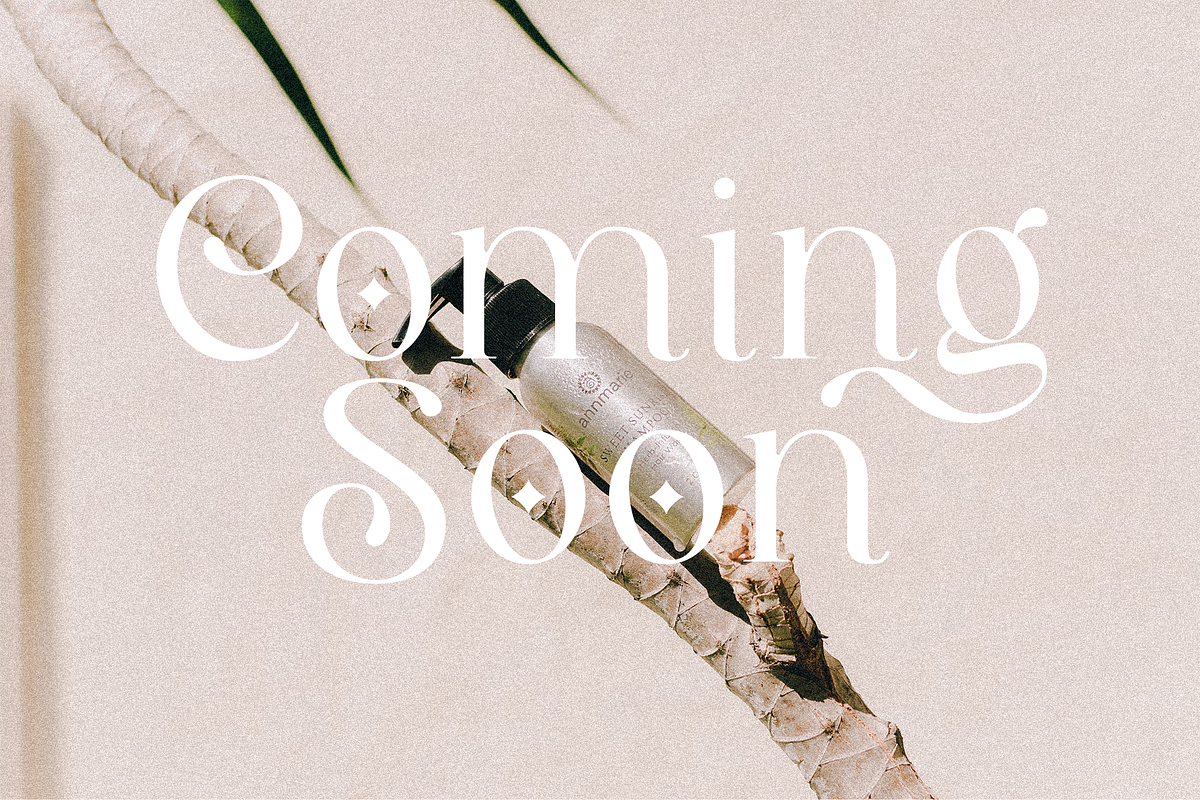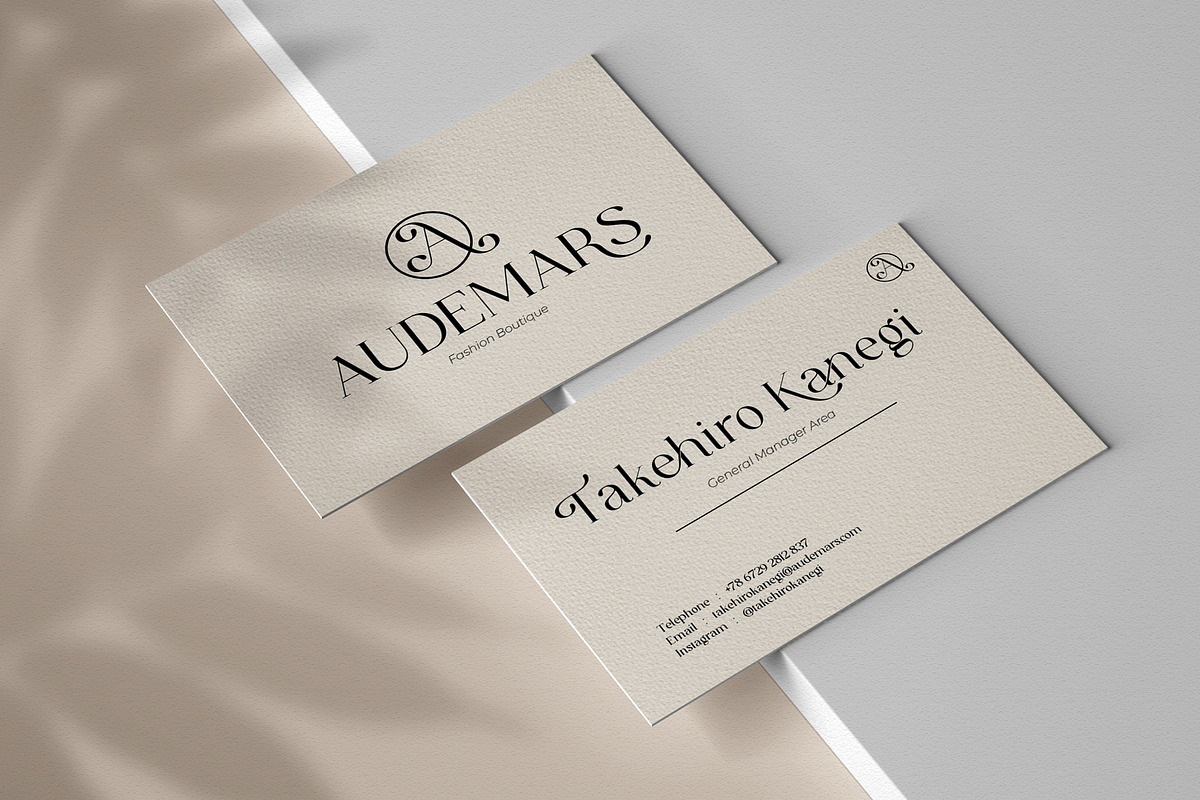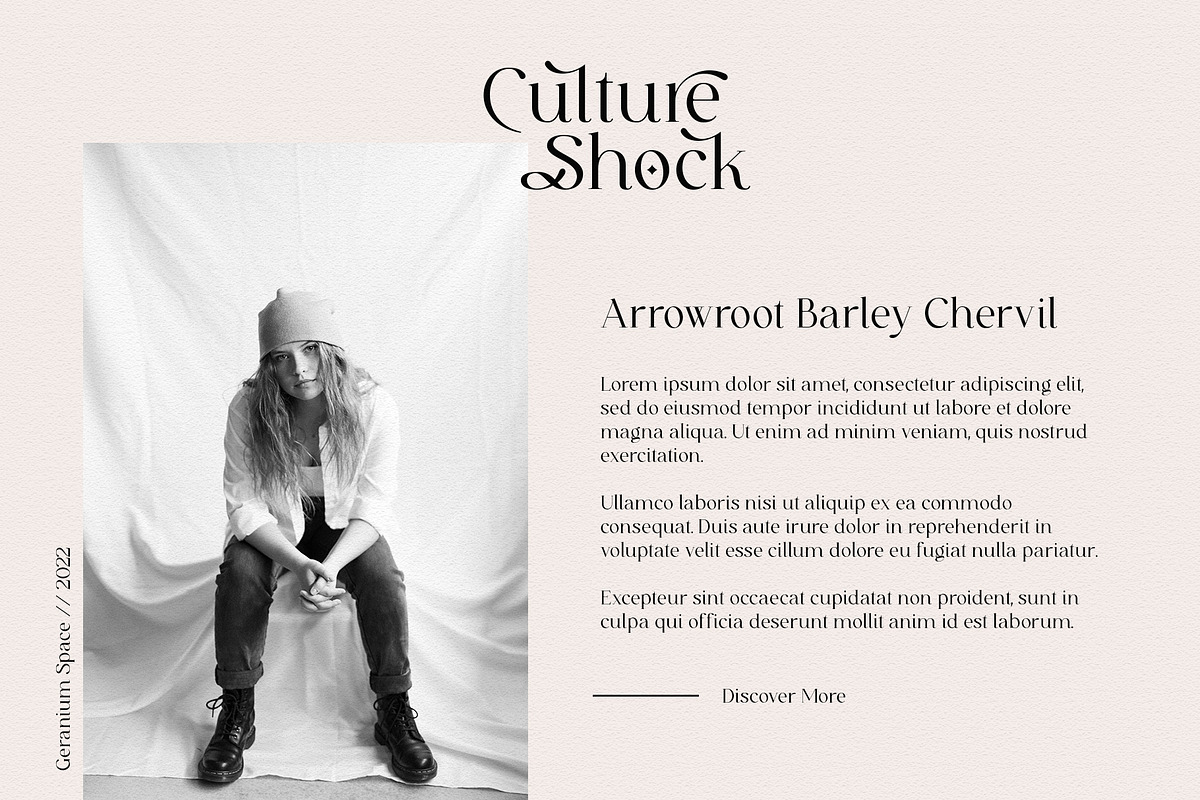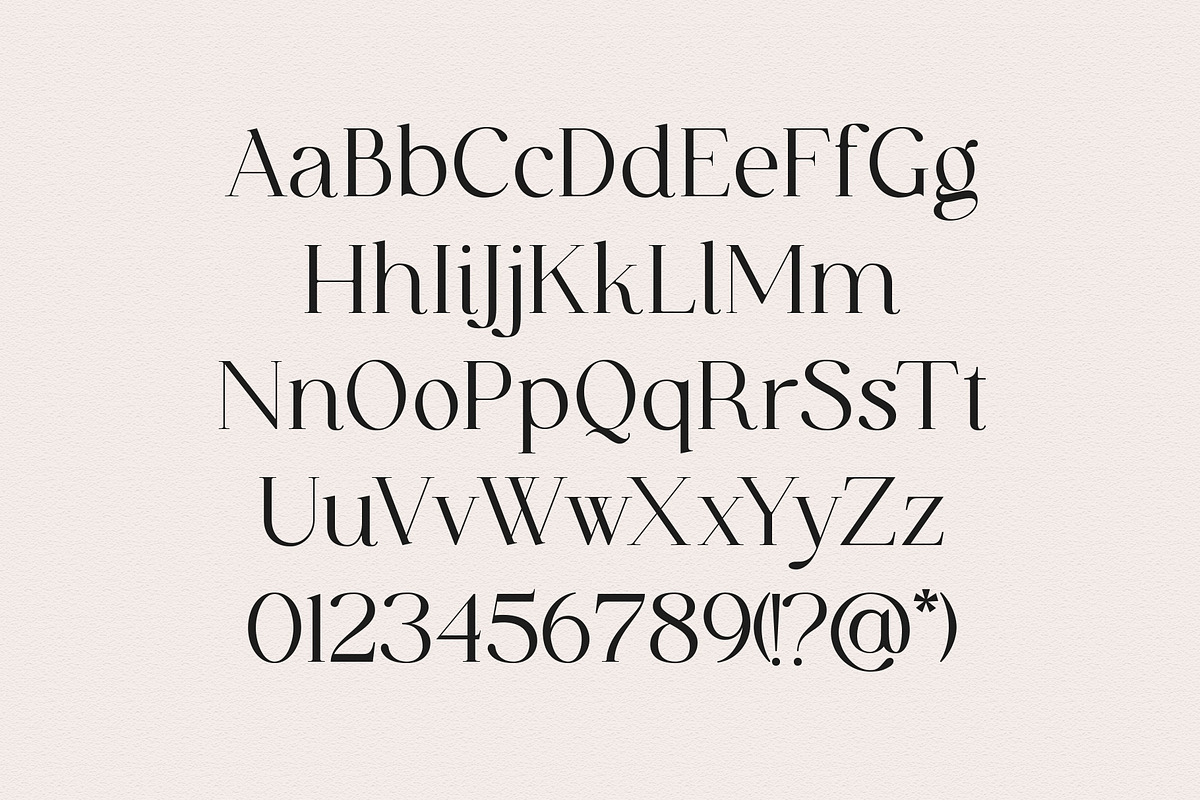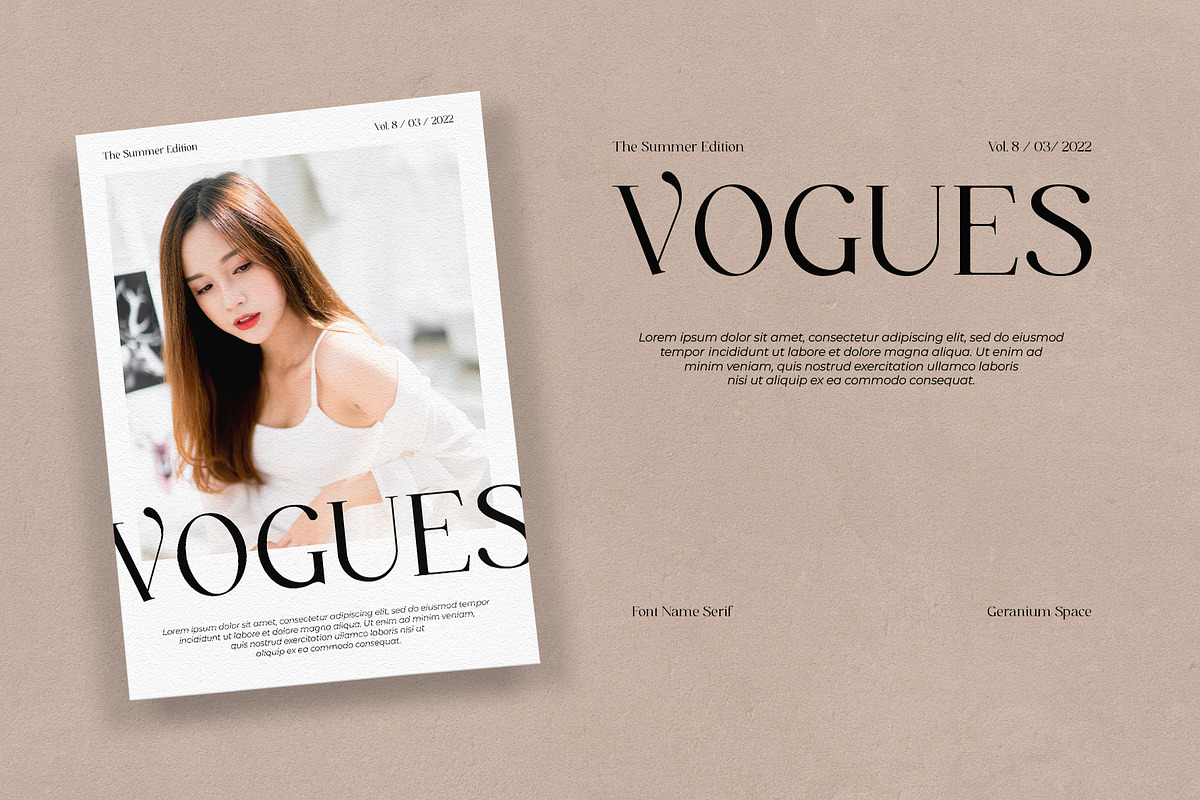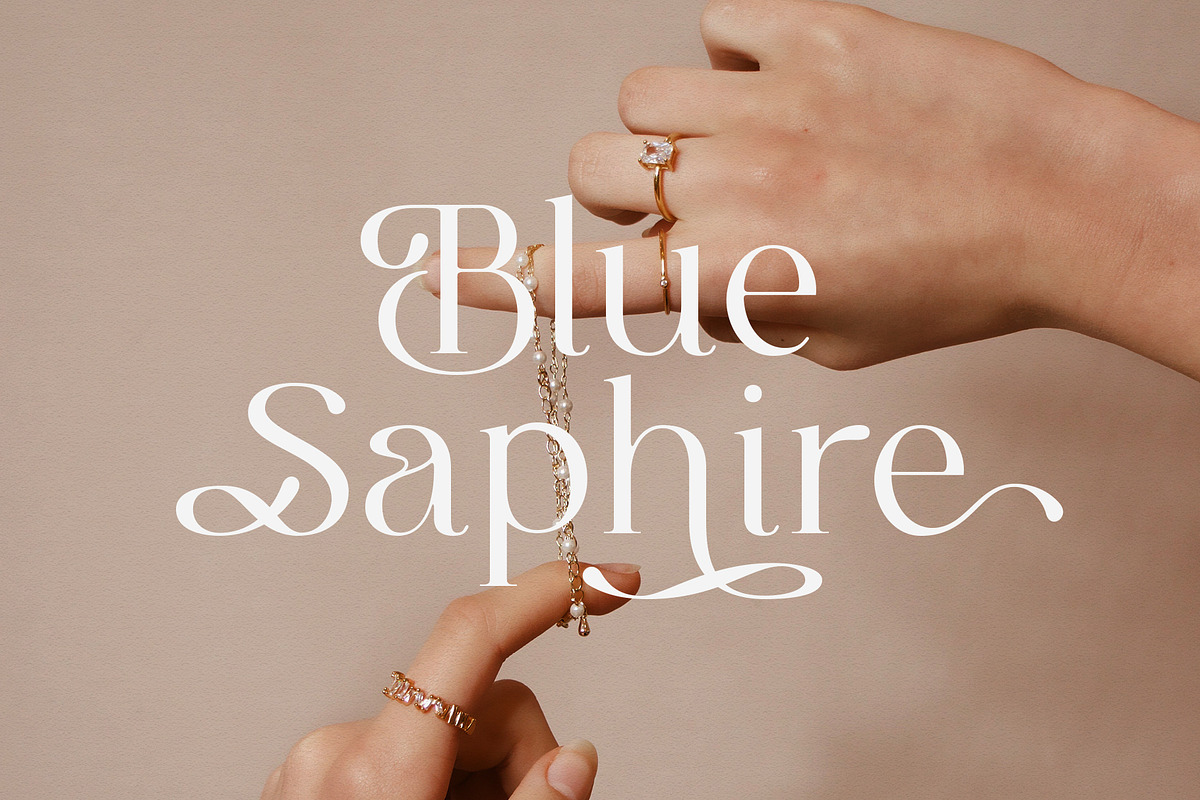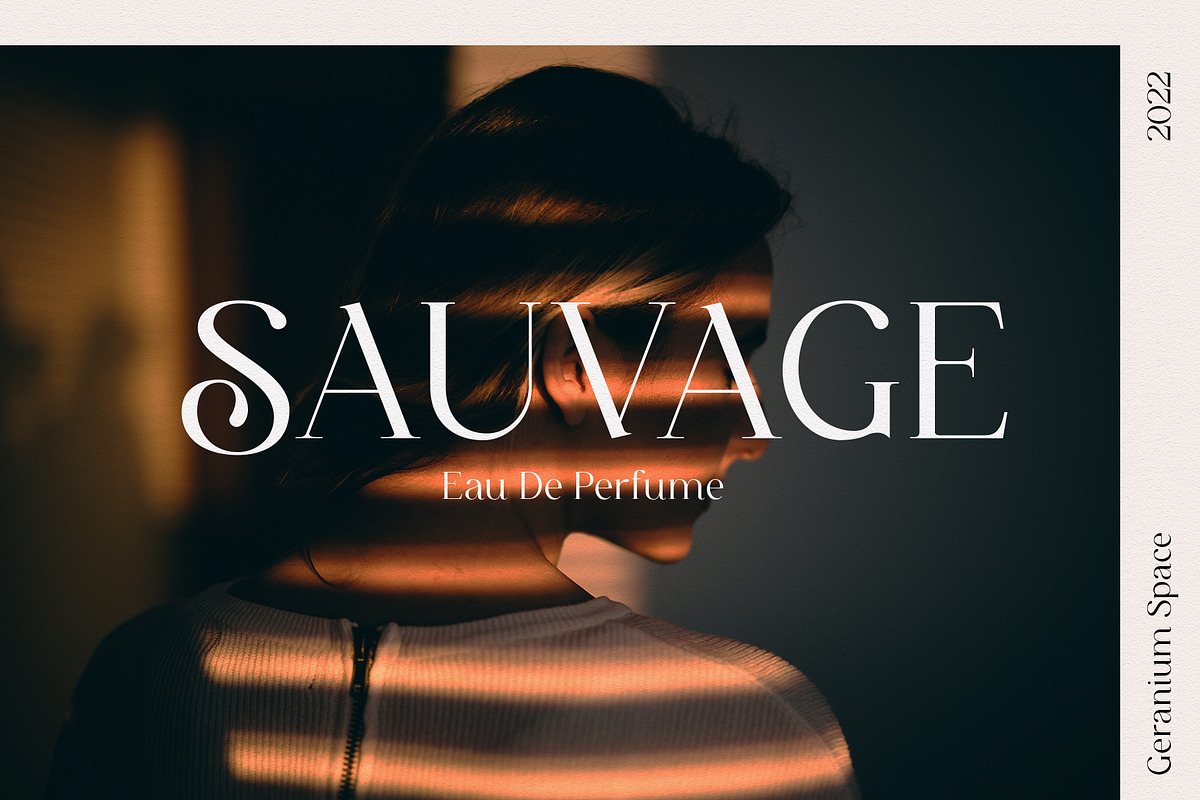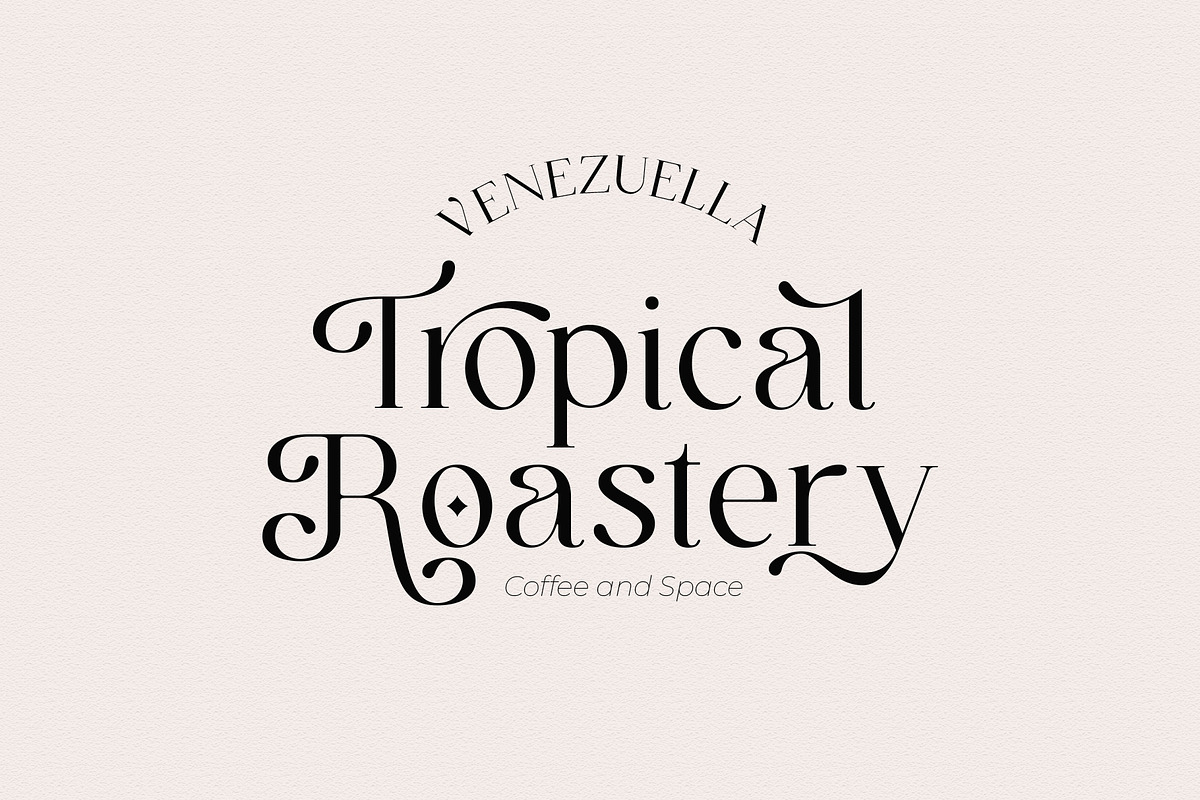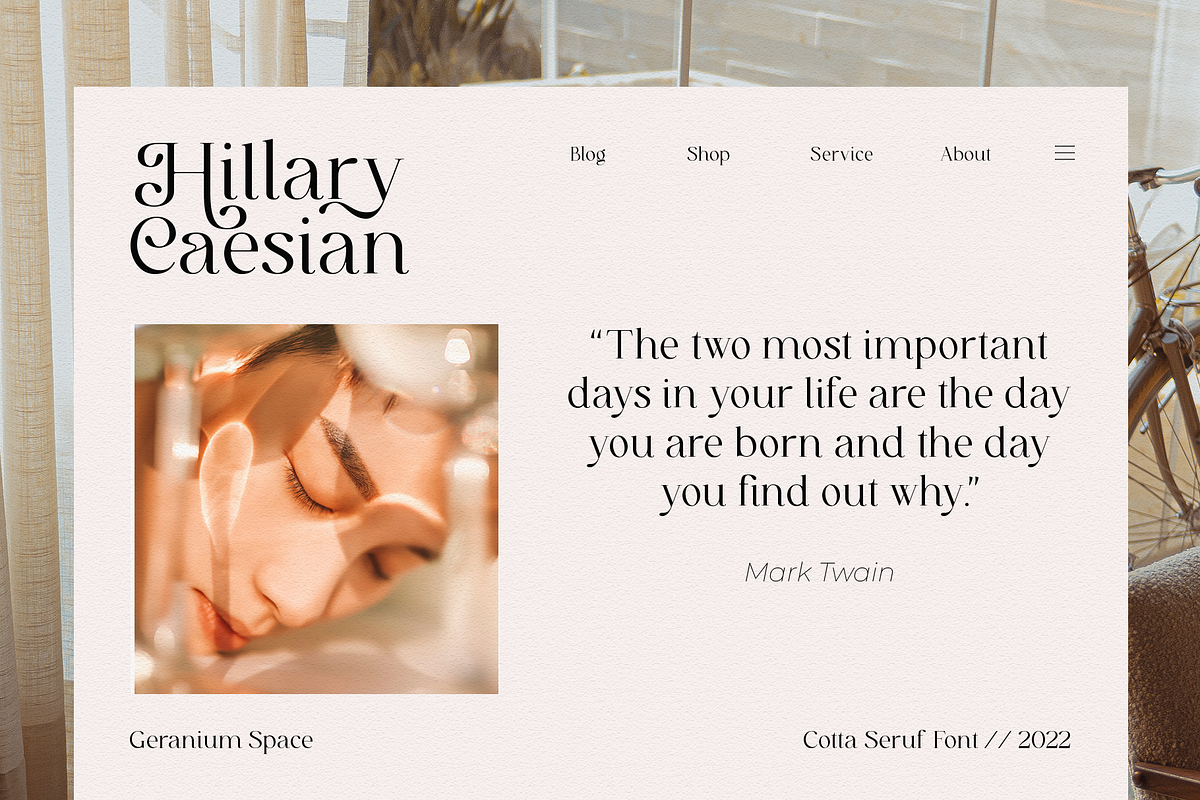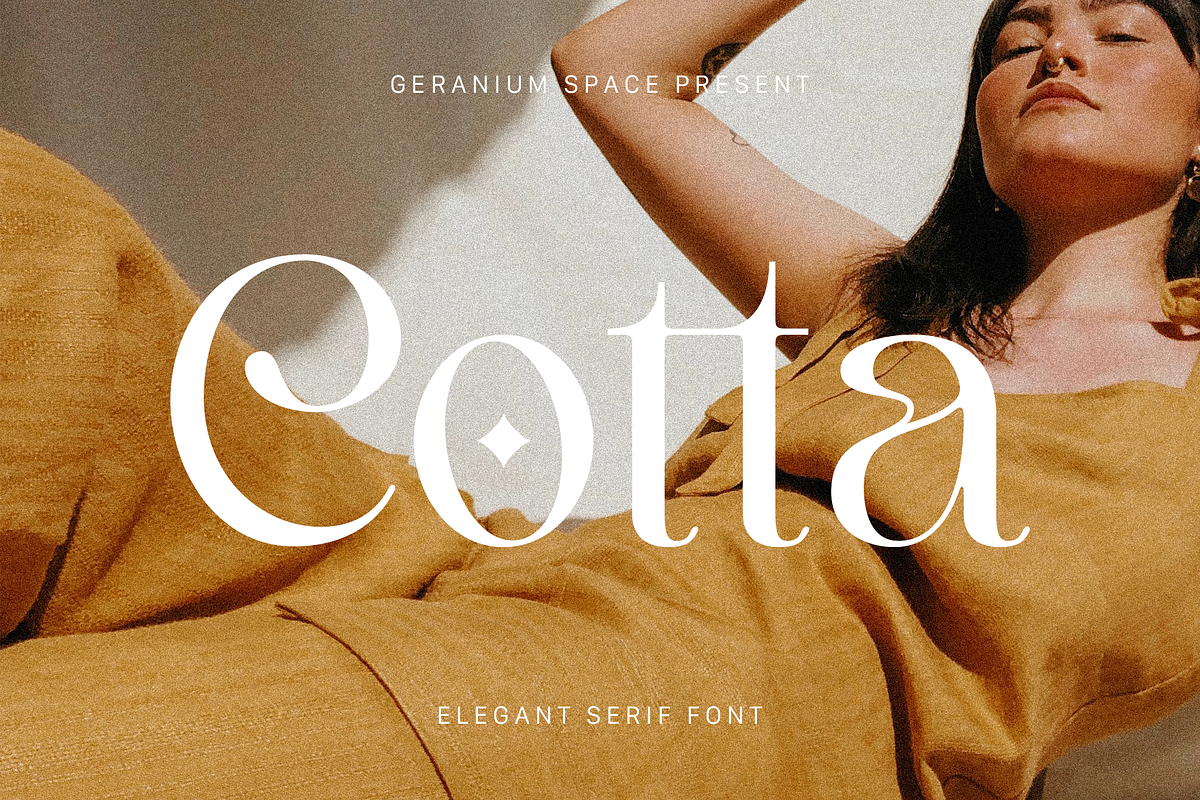
Cotta - Elegant Serif
Hello everyone let me introduce our new modern serif font "Cotta" in a feminine style. I provide many alternative letters that you can adjust to your design needs, and some ligatures to add a feminine impression.
"Cotta" is perfect for web design, branding, logos, invitations, magazines, and more.